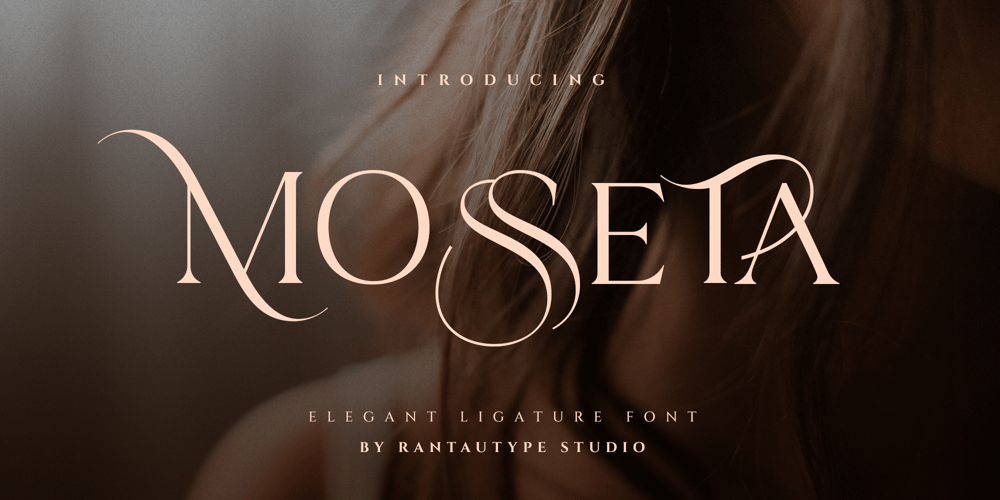
Mosseta Font Family was designed by Yudi Pratama Chandra and published by RantauType. Mosseta contains 2 styles and family package options. Mosseta – a modern & elegant display serif with Sophisticated shape, unique alternate and ligature for optional. We love how ligature it look elegant and professional. We keep this font looks fashionable, elegant, luxury, premium, modern, catchy and easy to use.Mosseta is a perfect choice for any creative endeavor, chic, lifestyle design such as logos, advertisements, watermark on photography, stationery, branding project, display and magazine, invitation, corporate brand, product design, label, business project and many other project need elegant taste.Features: Standar character A-Z and a-z Numberial and Functional Unique and premium Ligature Alternate Works on PC & Mac Simple installations Accessible in Adobe Illustrator, Adobe Photoshop, Adobe InDesign, even work on Microsoft Word. Fonts include Multilingual Support for: Afrikaans, Albanian, Asu, Basque, Bemba, Bena, Breton, Chiga, Cornish, Dutch, English, Estonian, Filipino, Finnish, Friulian, Galician, Gusii, Indonesian, Irish, Italian, Kabuverdianu, Kalenjin, Kinyarwanda, Luo, Luxembourgish, Luyia, Machame, Makhuwa-Meetto, Makonde, Malagasy, Manx, Morisyen, North, Ndebele, Nyankole, Oromo, Portuguese, Quechua, Romansh, Rombo, Rundi, Rwa, Samburu, Sango, Sangu, Scottish, Gaelic, Sena, Shambala, Shona, Soga, Somali, Spanish, Swahili, Swedish, Swiss, German.Thank you for your purchase!Hope you enjoy with our font!